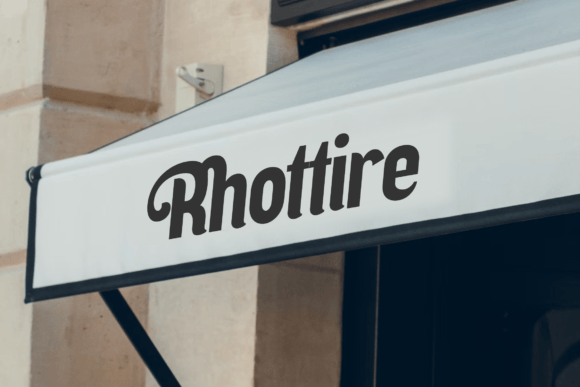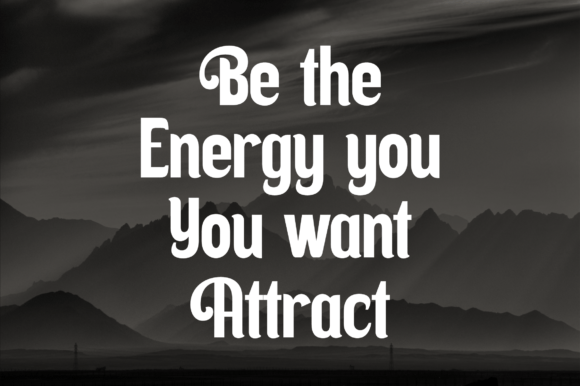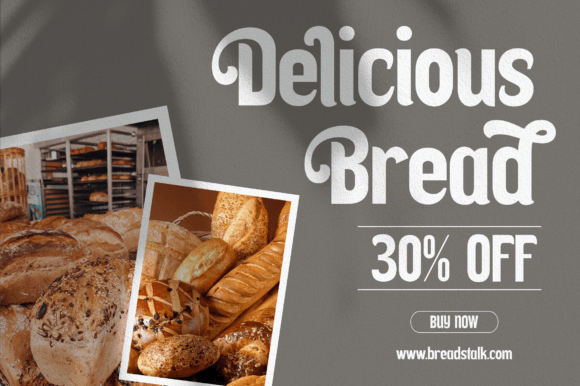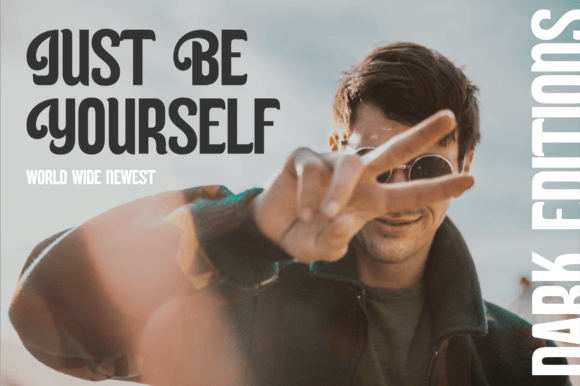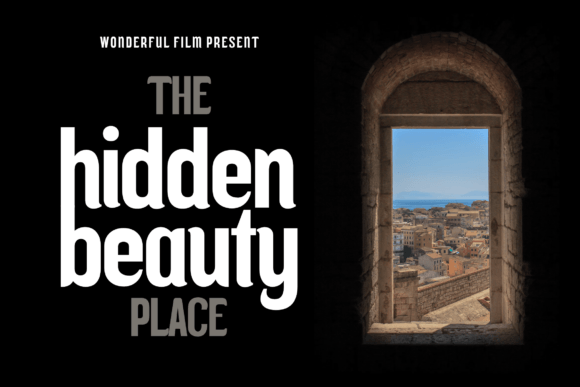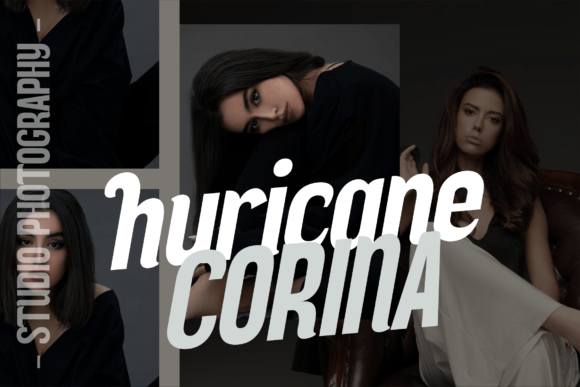
Introduction to Rublack Font
Have you ever stumbled upon a beautiful logo or book title that immediately caught your attention? For many designers, this moment of inspiration is a reminder of the power of typography in creative projects. It’s a moment that sparks the desire to find the perfect font to elevate a design to the next level.
That’s where the Rublack Font comes in – a modern display font that exudes elegance and luxury. With its high-quality design and versatility, this font is perfect for a wide range of applications, from fashion brands to magazine titles and book designs. Whether you’re working on a free download project or a high-end design resource, the Rublack Font is an excellent choice for designers looking to add a touch of sophistication to their work.
Key Features of Rublack Font
- Features a unique, modern design with a subtle texture, ideal for adding depth to your design.
- Perfect for use in logos, typography, and other design elements where a high-quality font is required.
Honest Review: Rublack Font
As a designer, I’m always on the lookout for high-quality design resources that can elevate my creative projects. The Rublack Font is one such find that I’d like to share with you.
- ✨ Unique and elegant design that adds a touch of sophistication to any project.
- ⚠️ Limited character set, which might be a concern for designers working on complex projects.
Tips for Getting the Most Out of Rublack Font
Common Use Cases for Rublack Font
The Rublack Font is perfect for creative projects, such as logos, posters, and social media graphics. You can also use it for presentations and documents that require a high-quality and professional design.